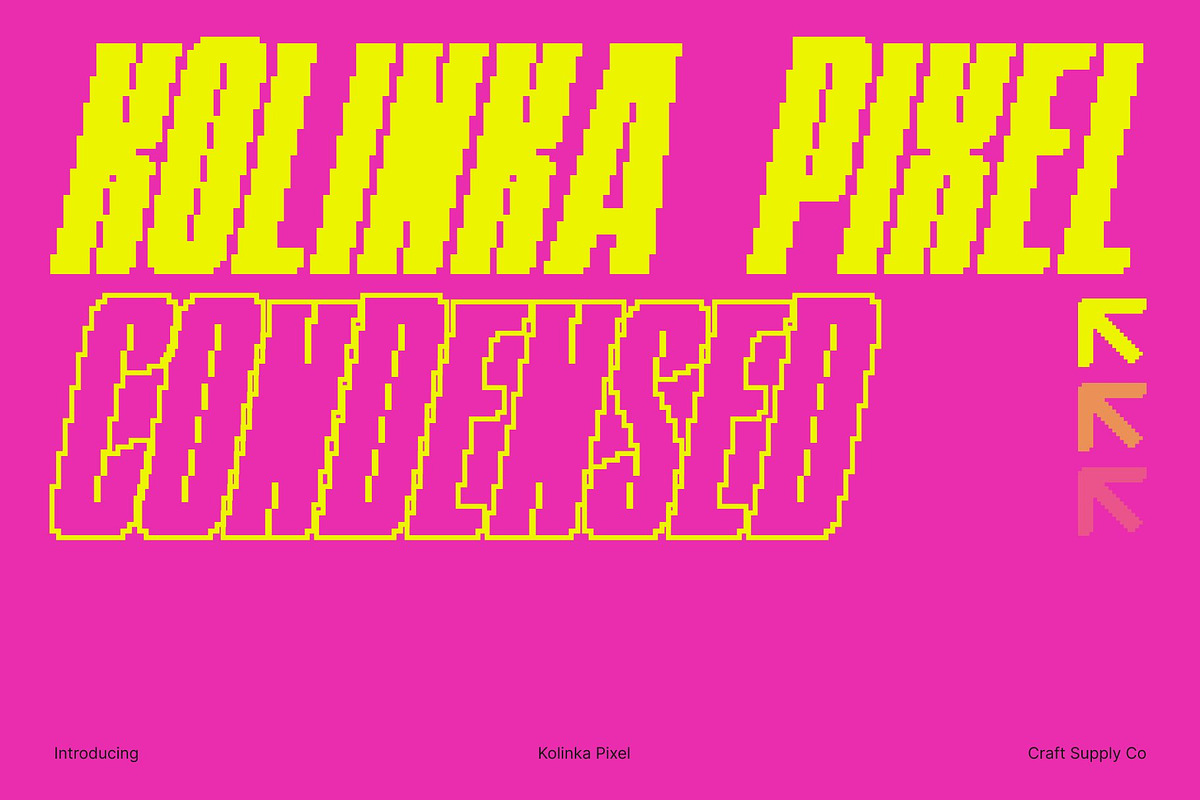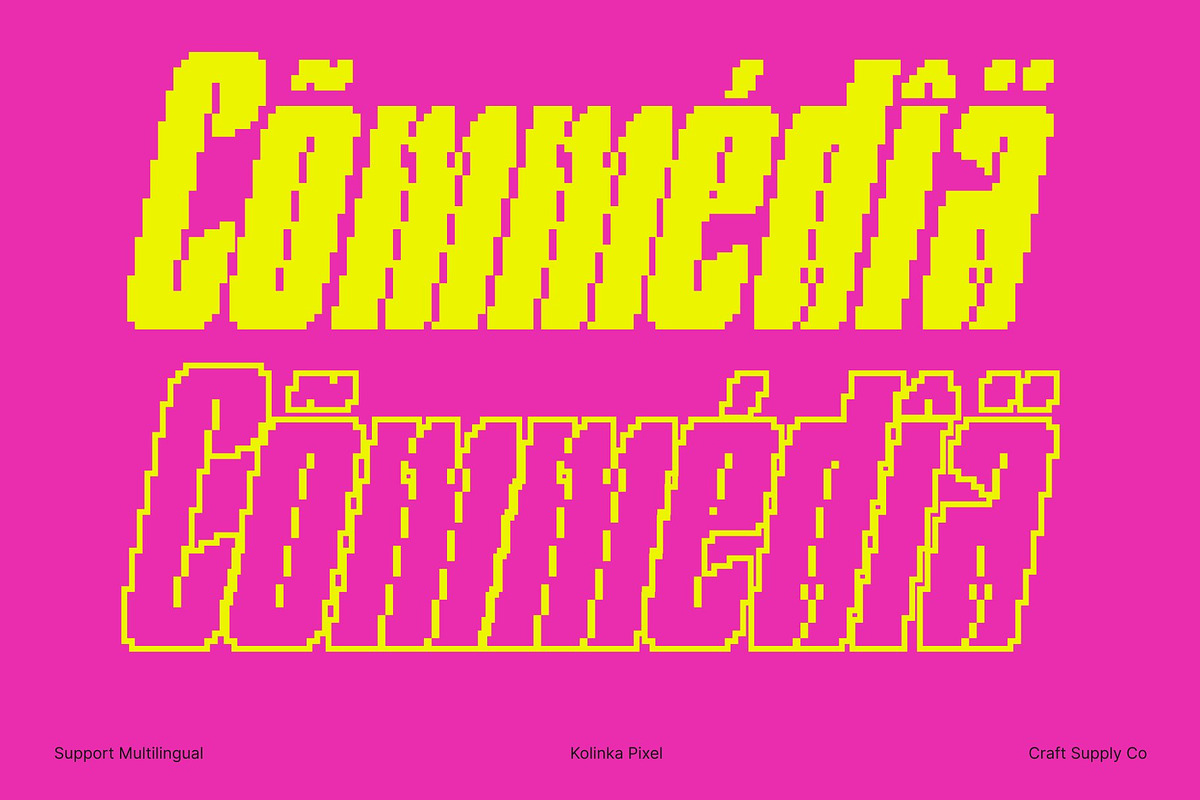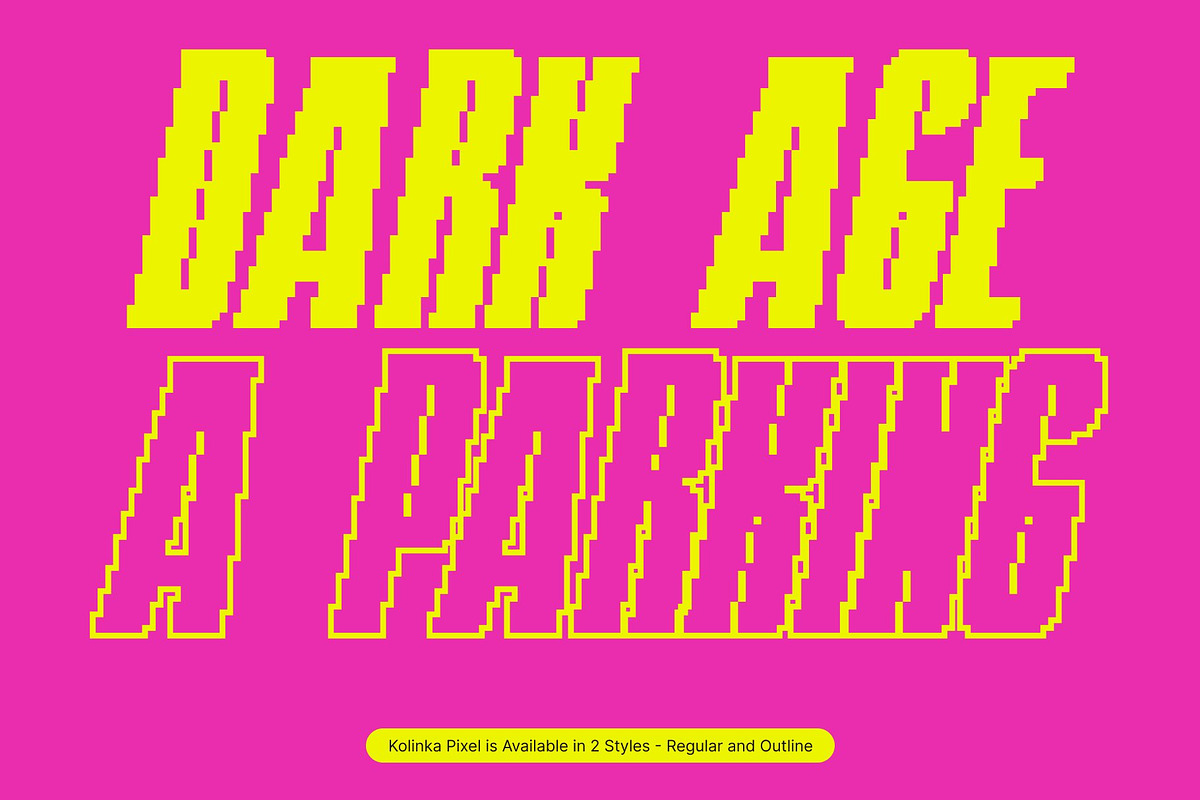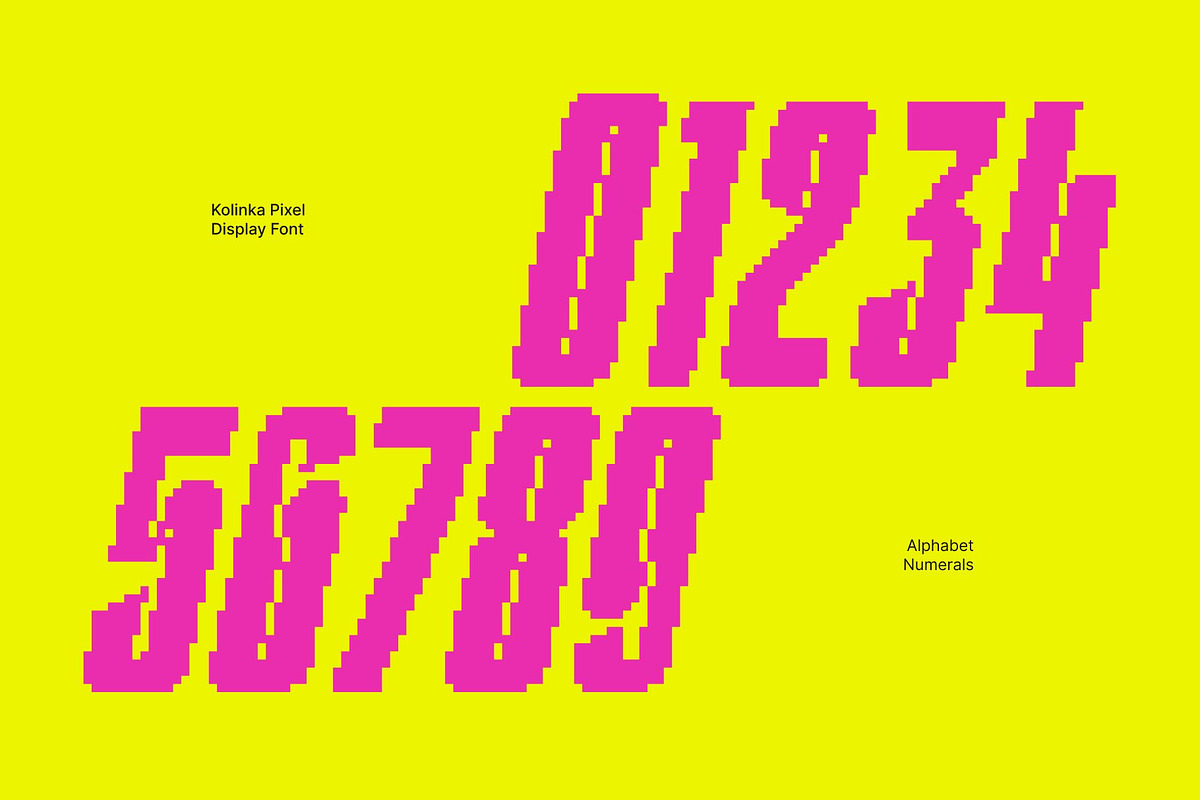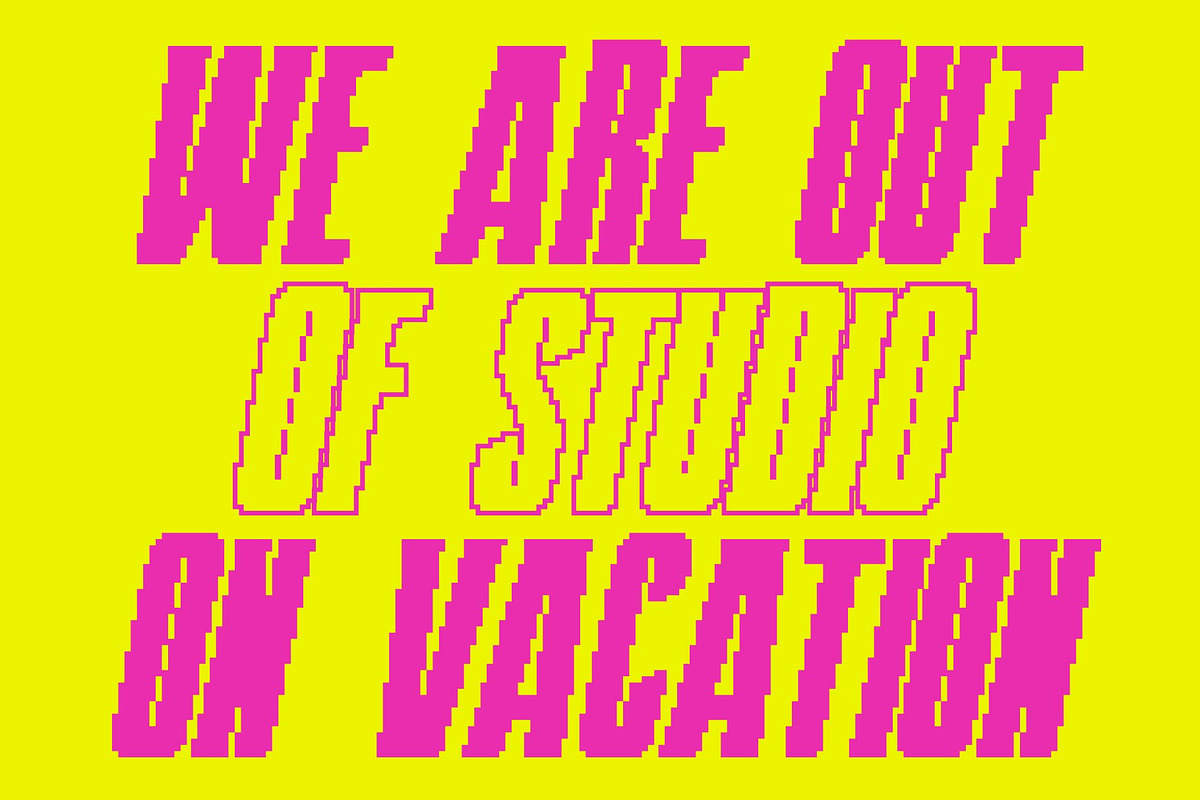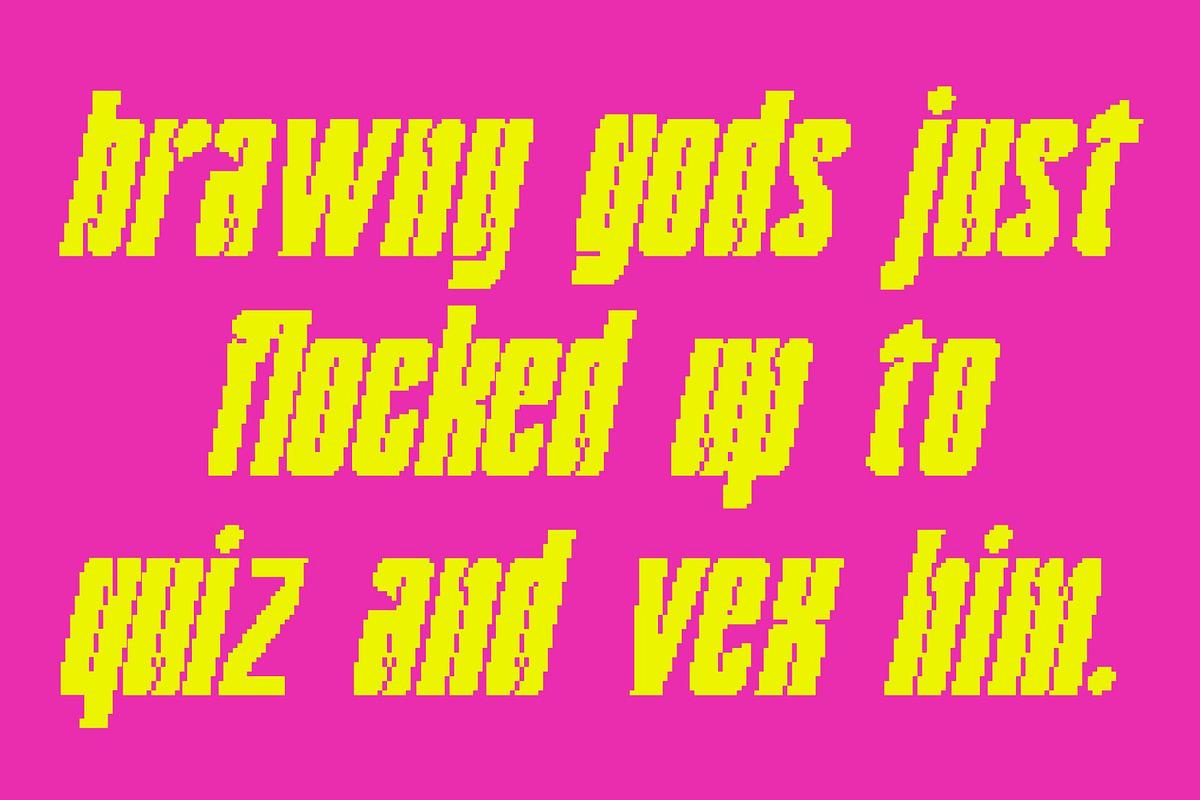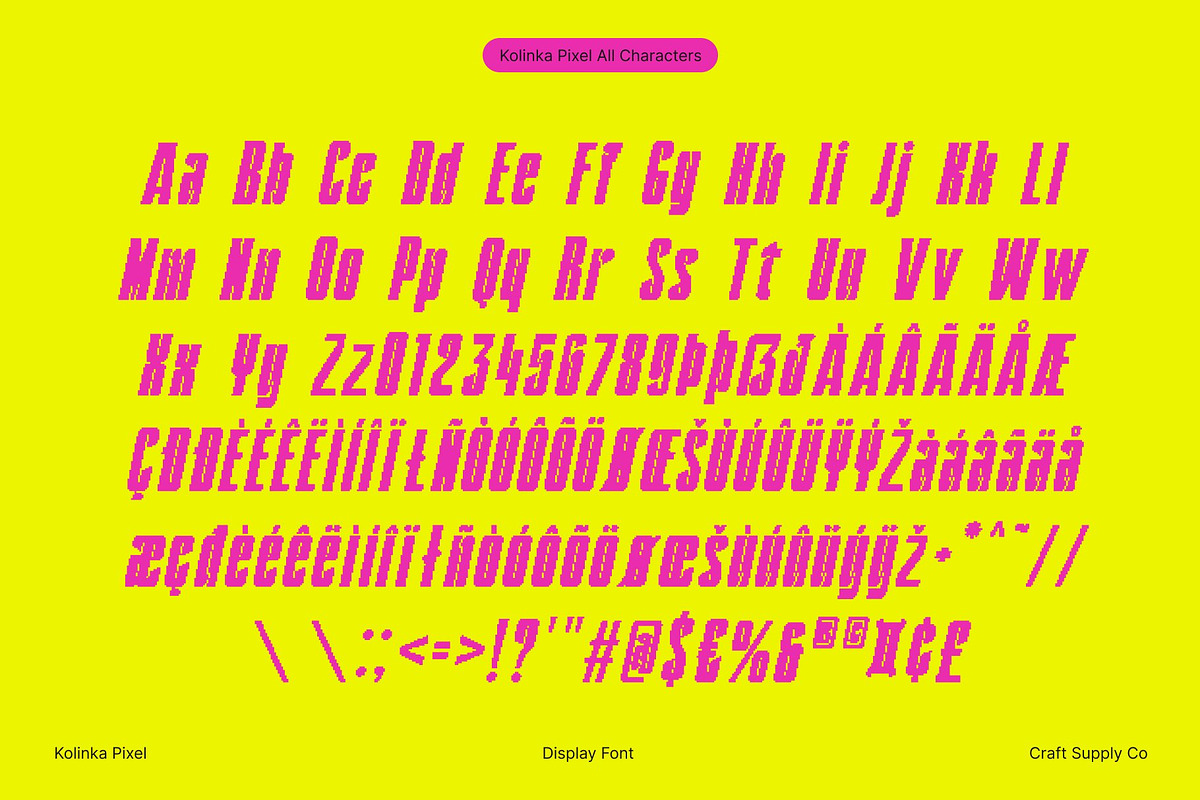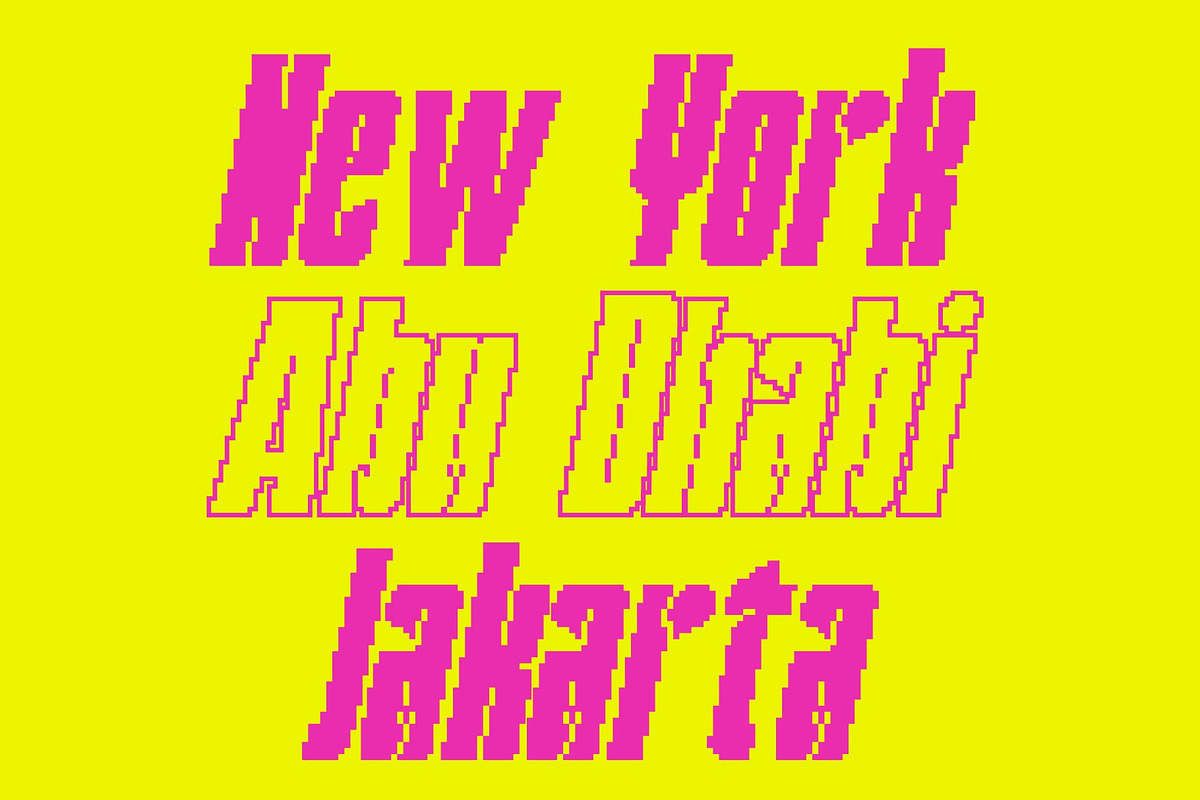
Kolinka Pixel
Kolinka Pixel – Condensed Sans Serif with Modern Pixel Character
Compact Shape for Maximum Impact Compact and modern, this condensed sans serif font delivers powerful impact even in tight spaces. Its narrow proportions create a strong visual presence that makes headlines, posters, and bold branding instantly stand out. Every letter is shaped to command attention while maintaining excellent balance and clarity.
Pixel Style for Fresh Digital Energy Enhanced with a pixel-inspired texture, this font brings a fresh, modern digital vibe to any design. The pixel style adds character, giving it a distinctive look that feels innovative and contemporary. This detail transforms the typeface from simple to striking, making it perfect for designers who want to add a tech-forward, stylish touch to their work.
Perfect for Headlines, Posters, and Branding Ideal for impactful titles, modern web design, creative posters, tech interfaces, and branding systems, this font excels wherever bold visual communication is needed. Its condensed shape ensures more text fits into limited space without losing strength, making it a reliable choice for dynamic design layouts.
A Bold Blend of Modern Minimalism and Digital Flair By combining a compact sans serif structure with a unique pixel finish, this font offers a fresh, energetic, and contemporary feel. It balances readability with bold expression, making it the perfect choice for modern design, digital projects, and any creative work that aims to look sharp, stylish, and forward-thinking.
- Kolinka Pixel Regular
- Kolinka Pixel Outline